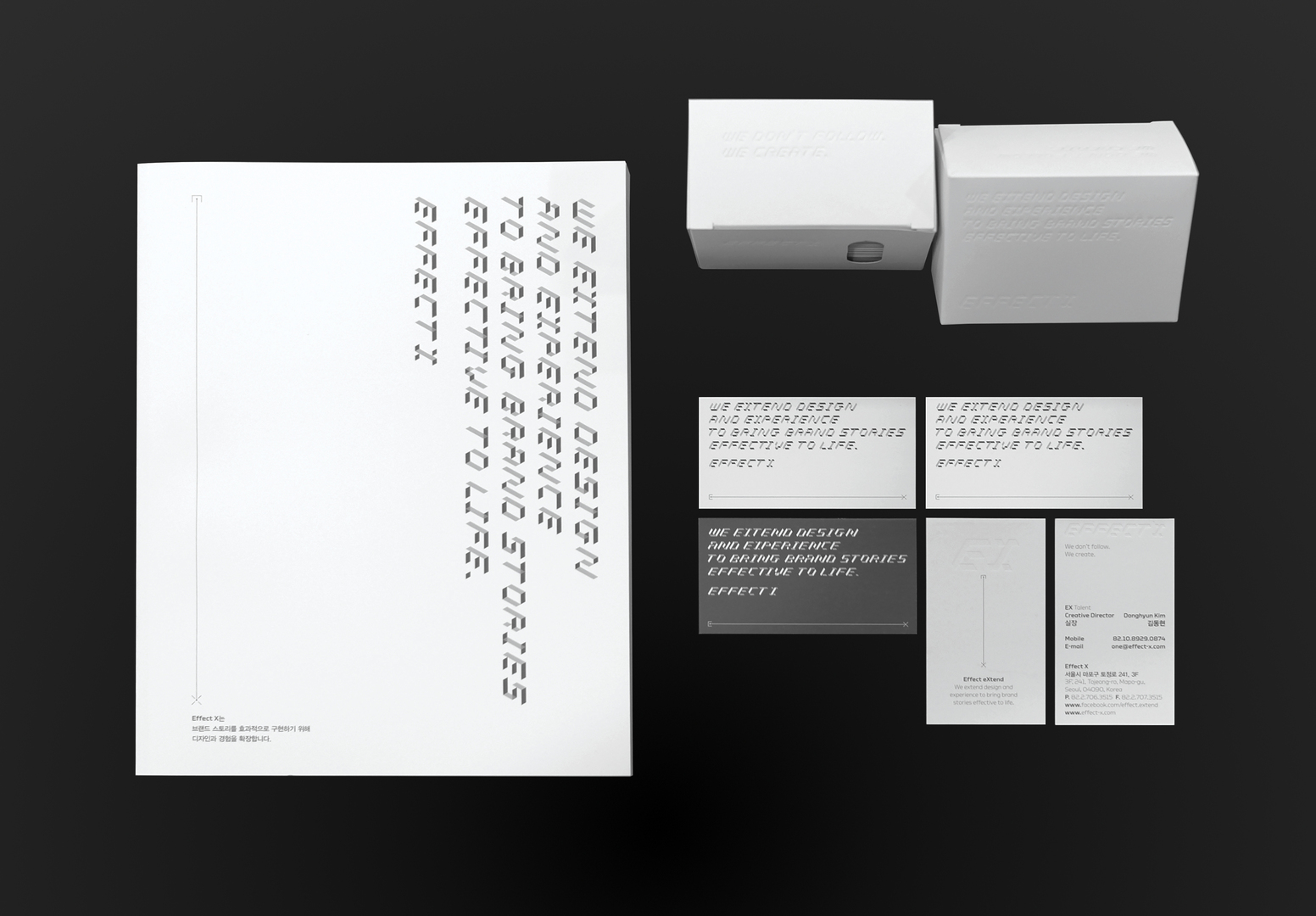
Optical Illusion Typeface
This typeface is created based on cognitive science theories under Effect X's ‘Extend Visual Through Design’ methodology. Taking a 3D cube as a hexahedron that can be divided into six equilateral triangles, it forms a grid that is further developed by adopting a precise pattern composed of equilateral triangles. An illusion typeface is thus achieved that has the depth of space and precise connectivity. Finally, by tweaking the saturation, a mystic illusion font is in effect when seen from two angles—from the upper left and lower right. Red Dot Award: Design Concept | Ready to Launch | Communication